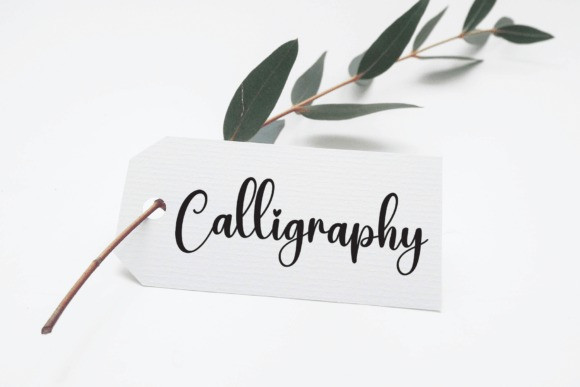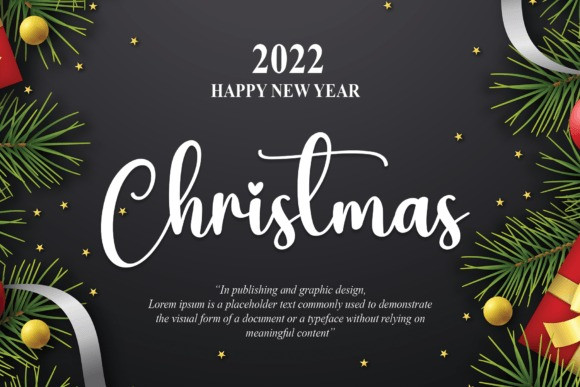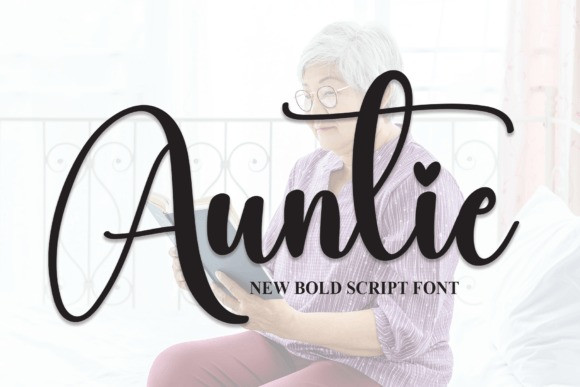
Auntie Script Typeface
Auntie Script Typeface, is a bold, and thick font that will help you create fun and playful designs and will look good on a variety of branding and packaging projects. This chubby font features the perfect combination of fun and creativity to instantly grab anyone’s attention.